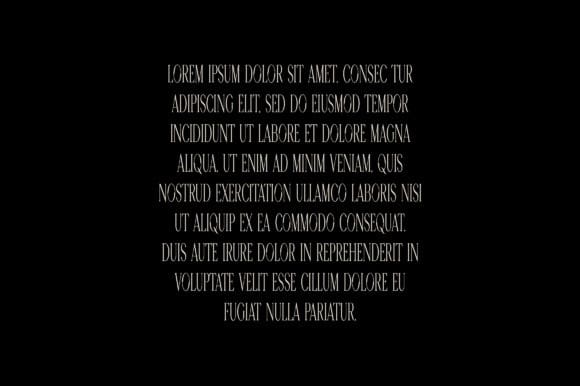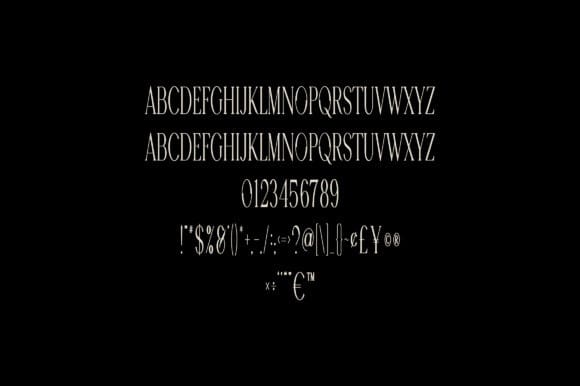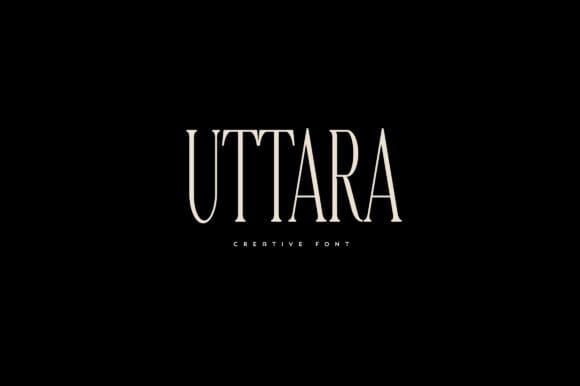
Uttara Font
Uttara Font is an elegant and versatile font that will make your typography truly unique! It will enchant every logo, branding, headline, or plain text!